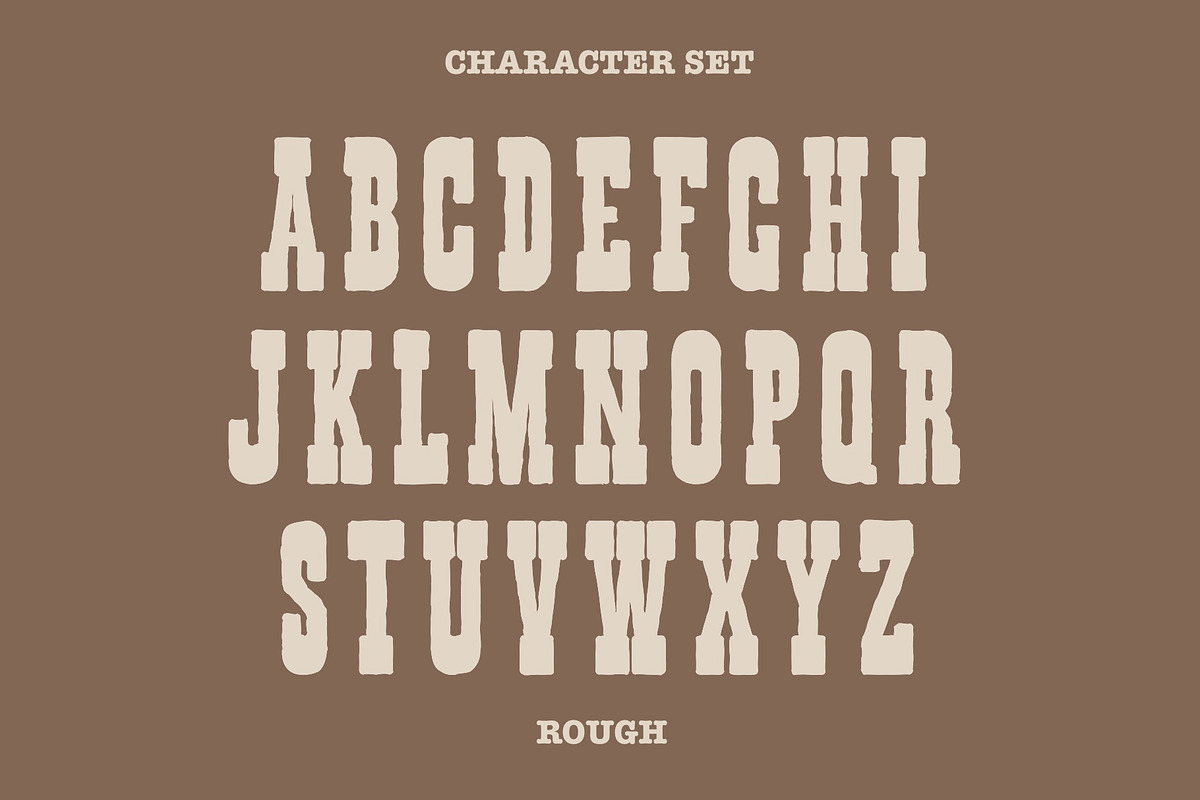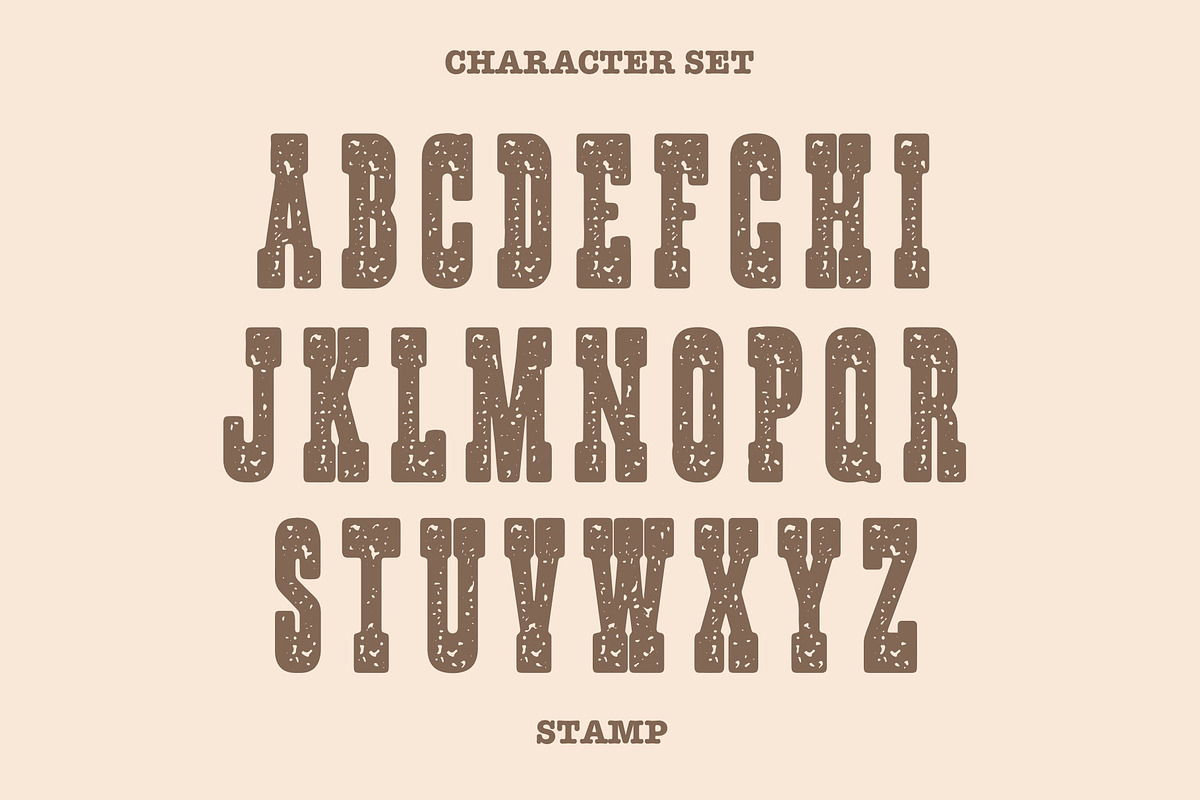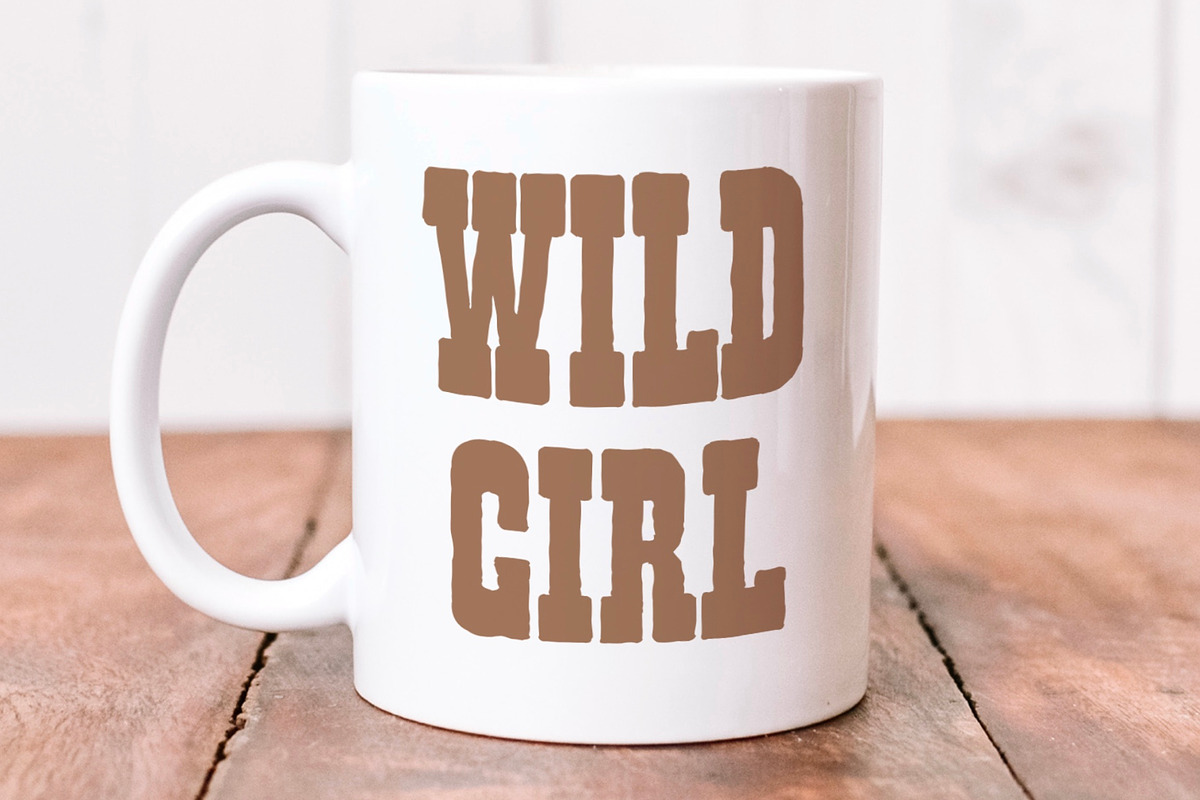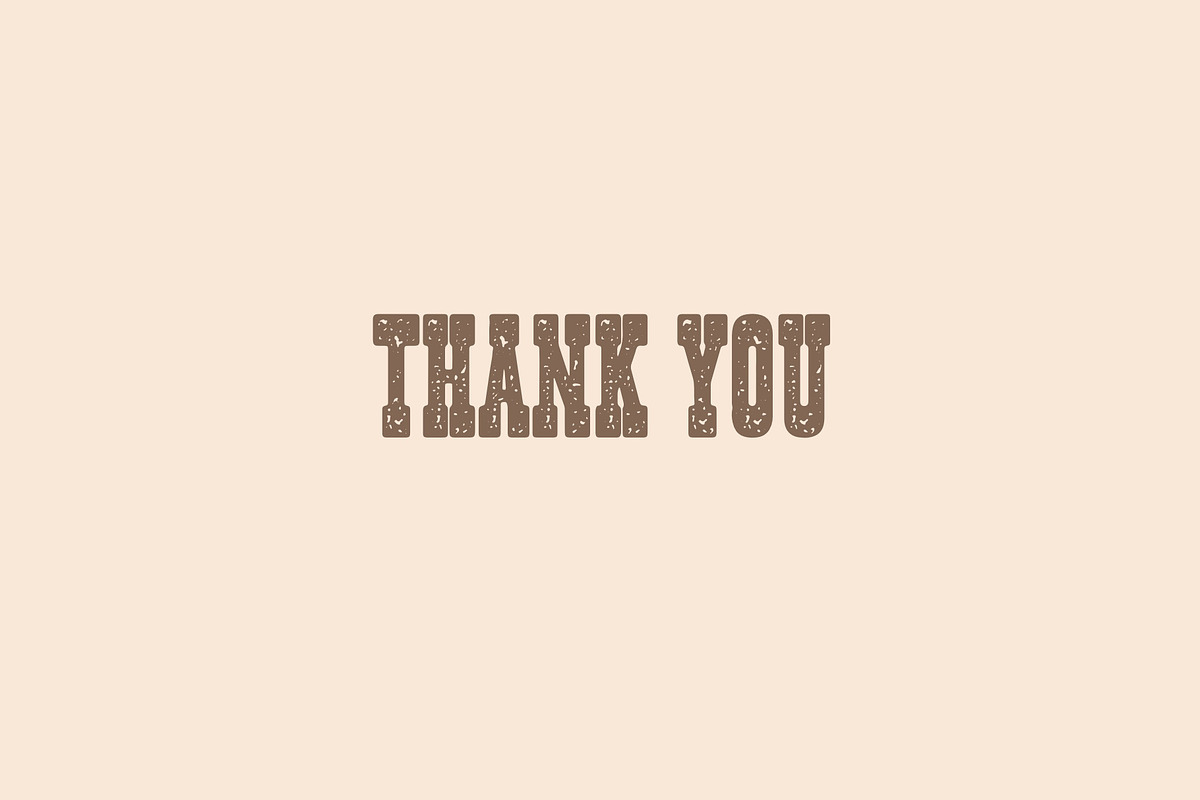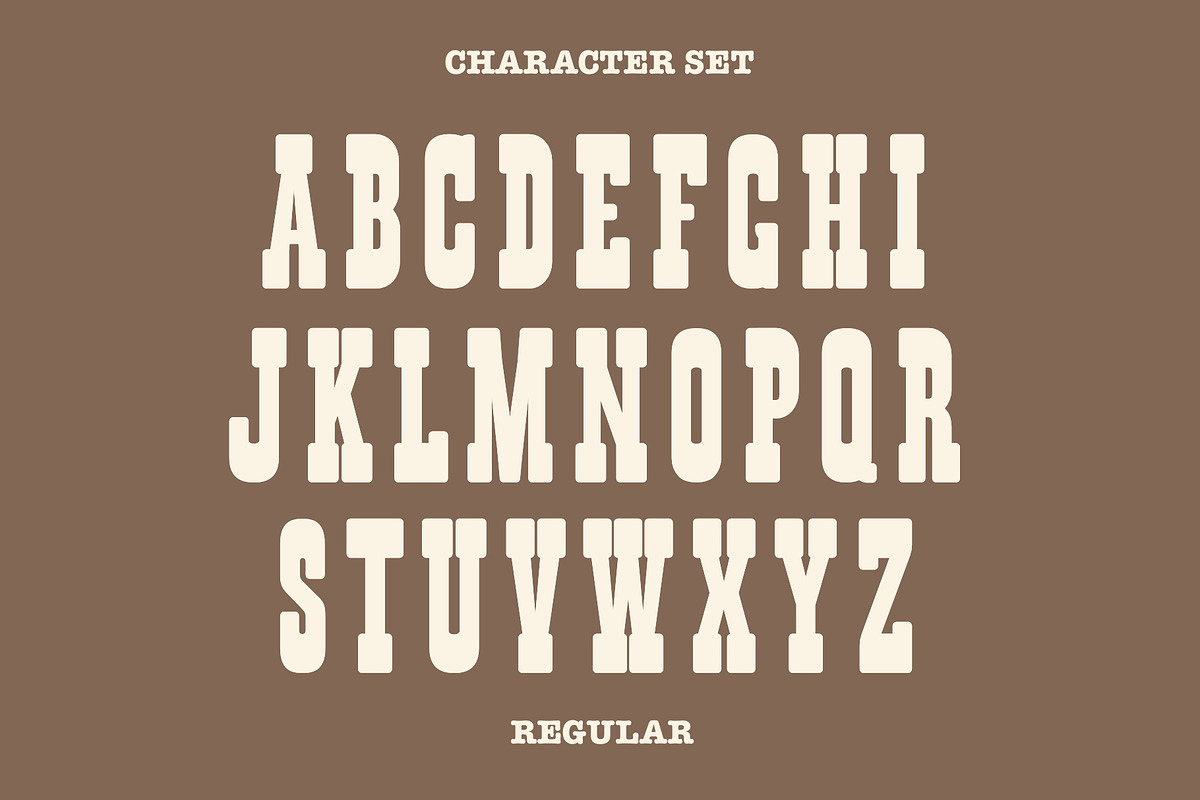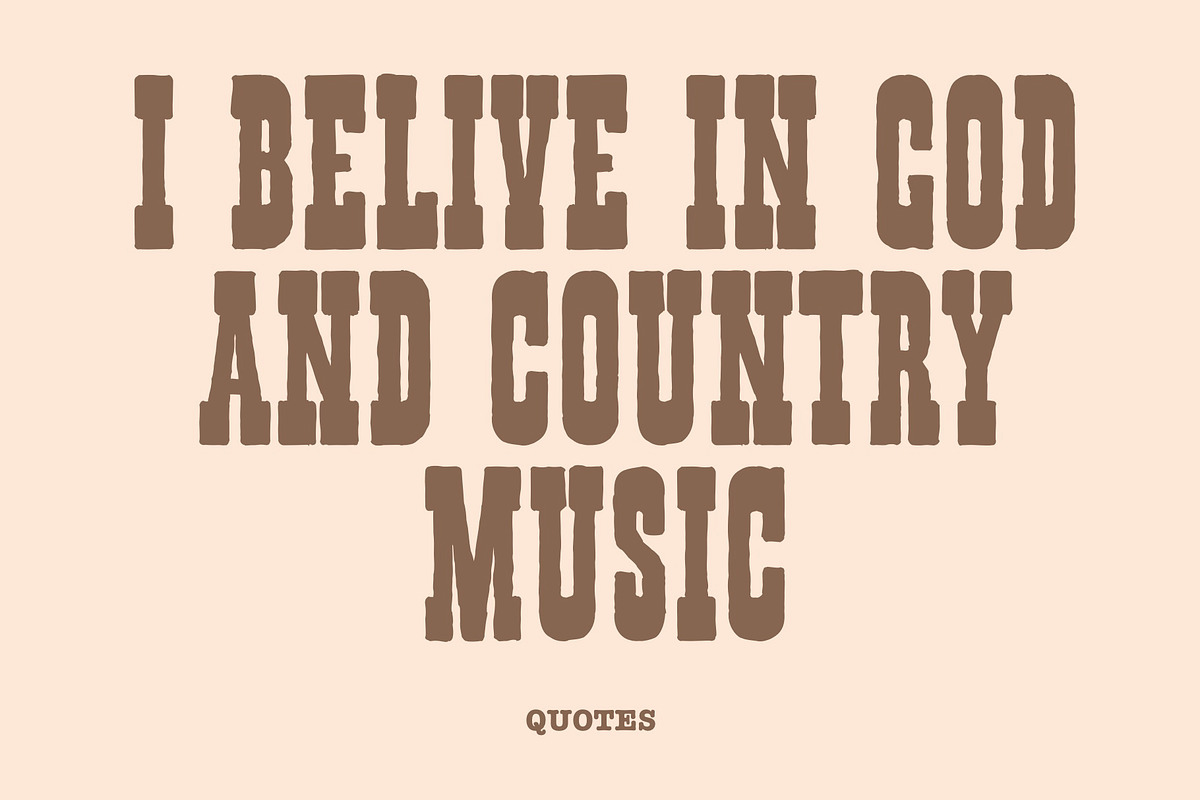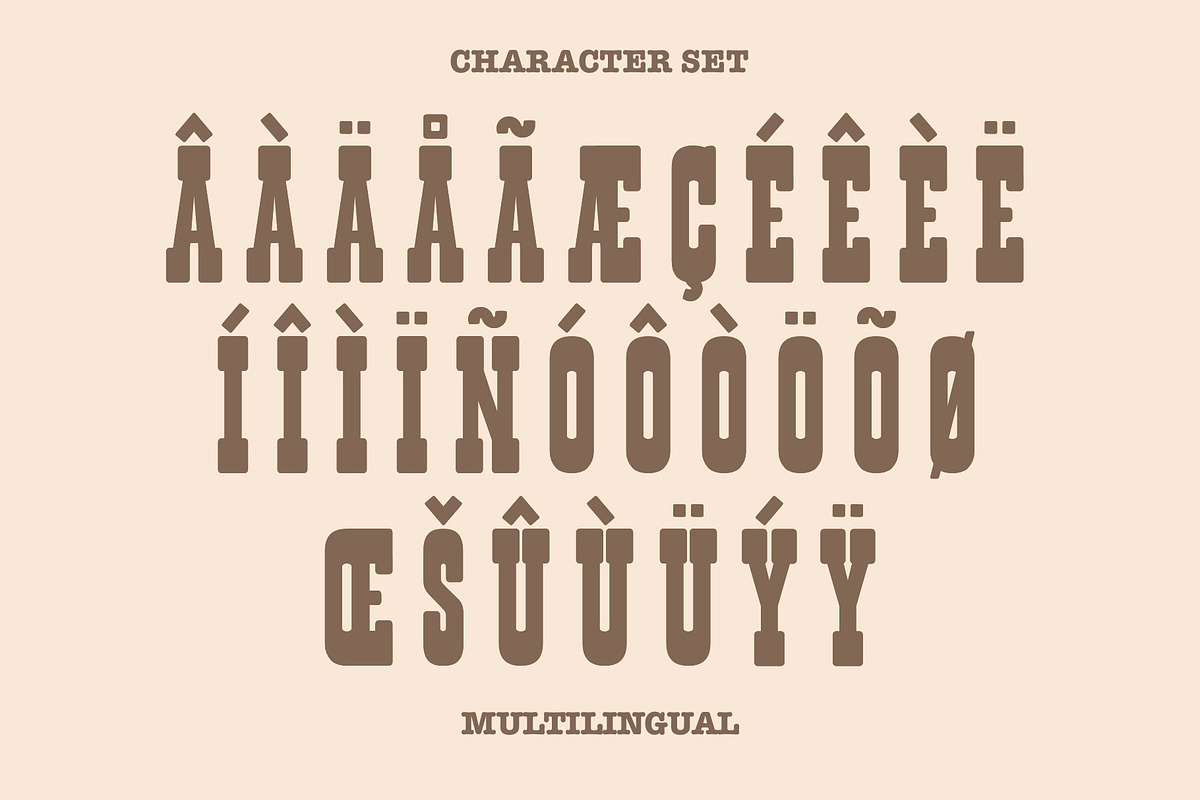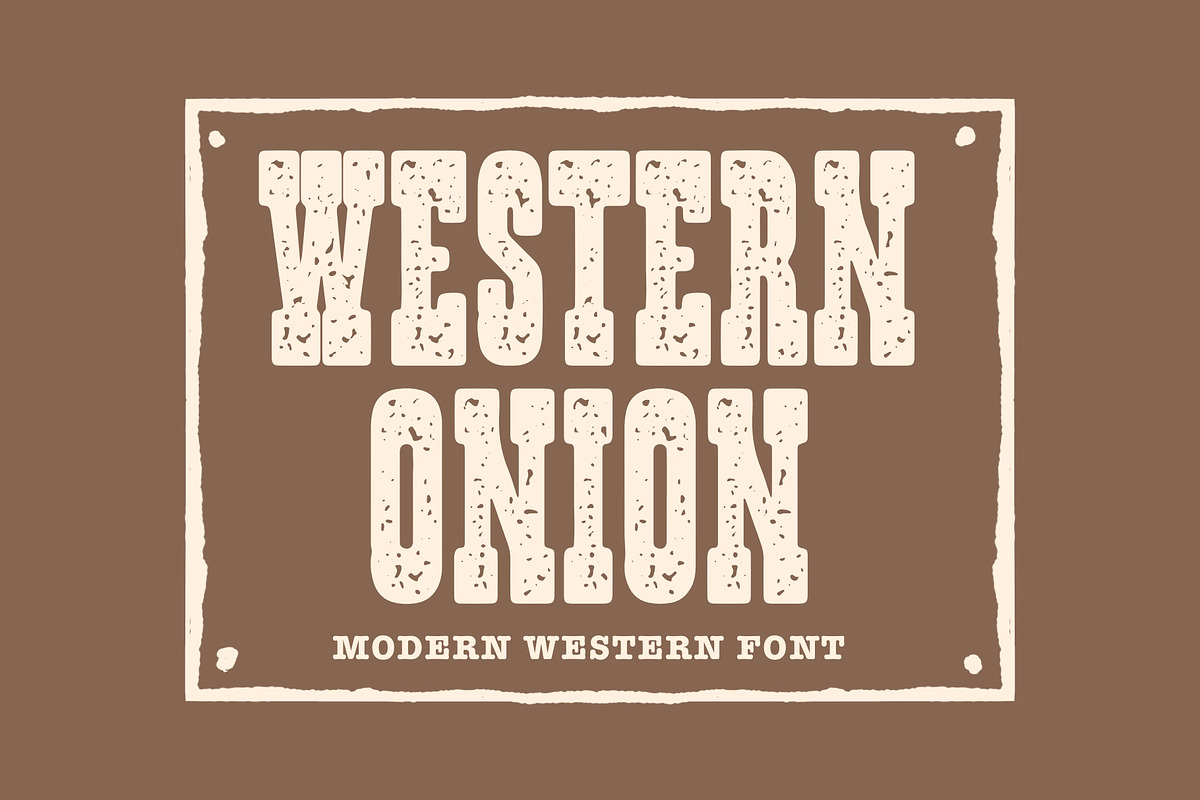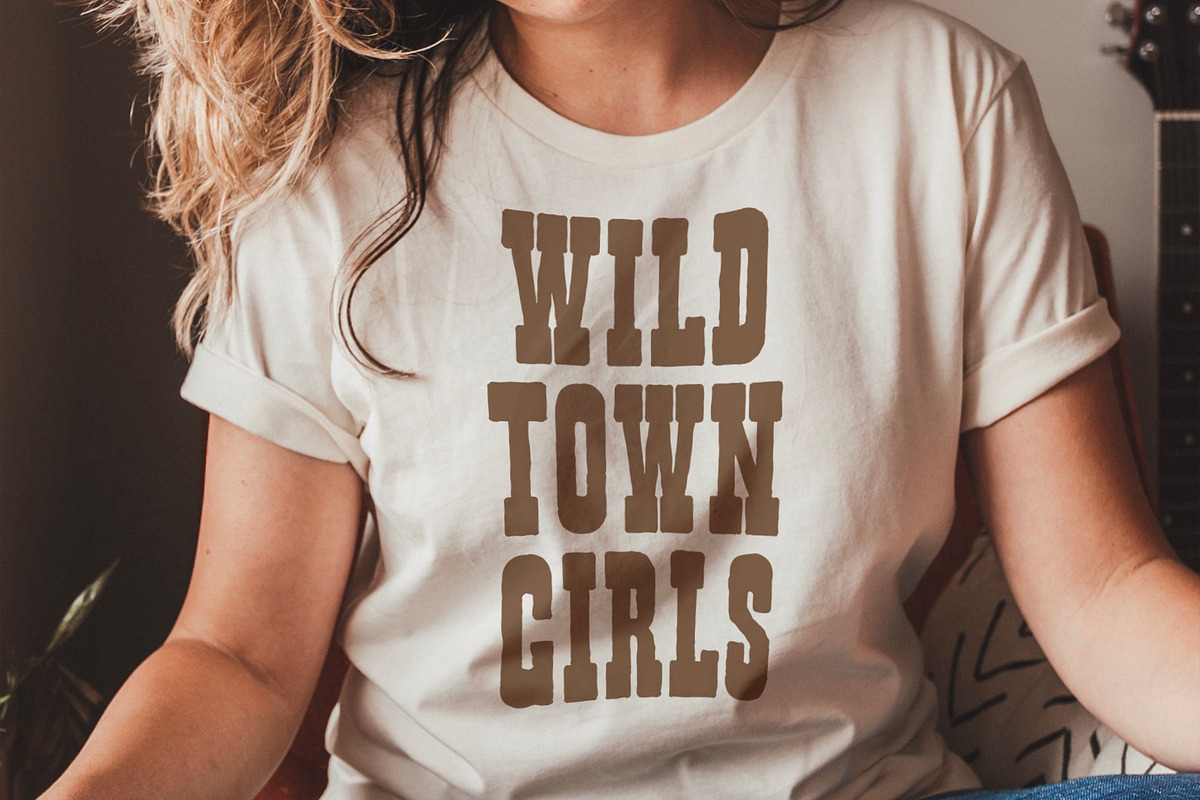
Western Onion Font - Serif Font
Western Onion is a captivating serif font that seamlessly fuses classic elegance with a modern Western twist. This typeface available in SVG format, compatible with advanced tools such as Cricut and Glowforge, and for use in Procreate. Designed with meticulous attention to detail, this typeface captures the essence of the Old West while incorporating contemporary design elements. The serifs are subtly pronounced, lending a timeless sophistication to each character. The letterforms boast a balanced combination of sturdy, well-defined lines and graceful curves, creating a harmonious aesthetic that is both rugged and refined. Western Onion's versatility shines through its ability to convey a sense of adventure and nostalgia, making it an ideal choice for projects that seek to evoke the spirit of the Wild West while maintaining a contemporary edge.